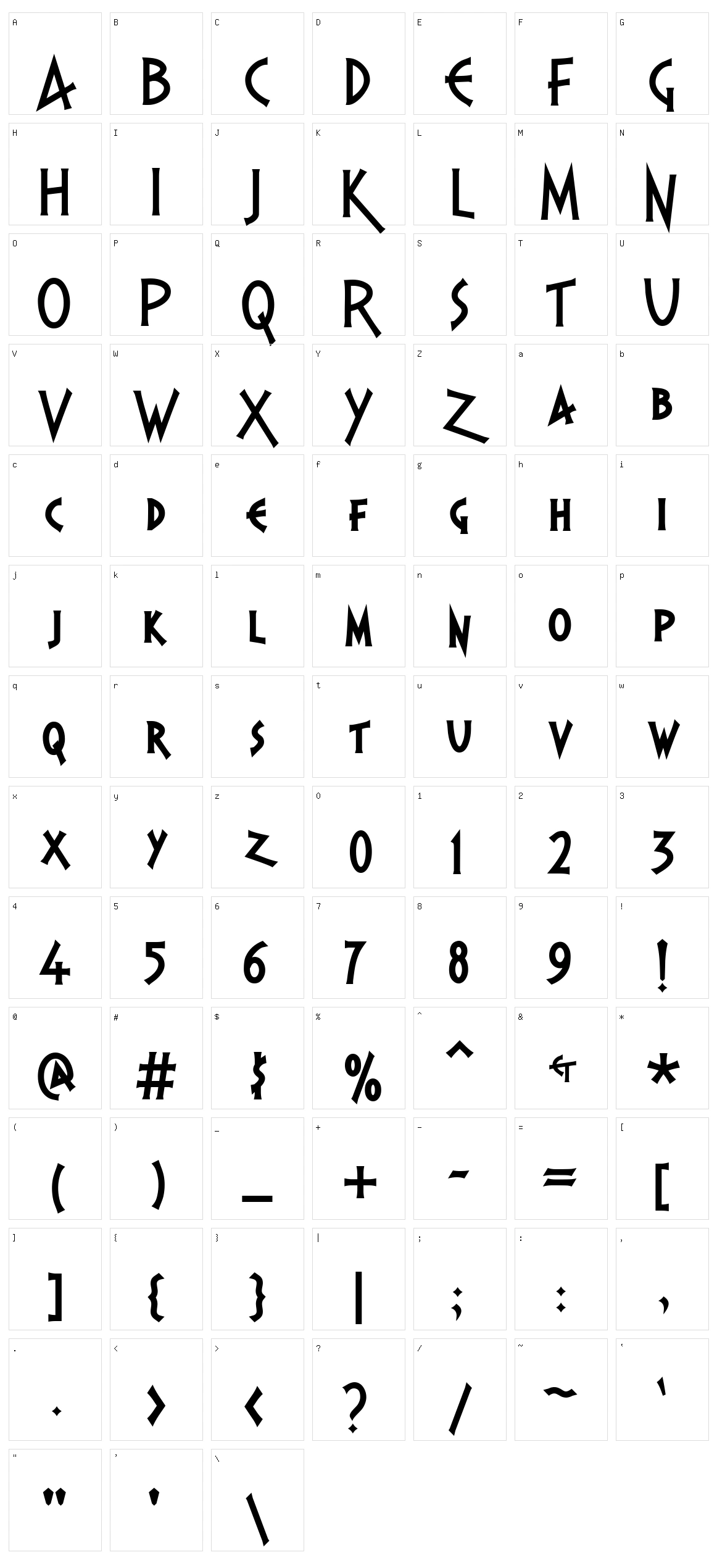
About the artist
Peter Rempel was born in 1958, and is educated in music composition and visual design. In his family home, there were many wall plaques with German Bible verses, rendered in a variety of gothic and fraktur lettering styles. In the 1980s he discovered the art of calligraphy, first through the speedball lettering textbook, and later by joining the calligraphers Guild of manitoba.
He has studied a variety of lettering styles, but his strongest interest is in the letter styles of the Middle Ages, starting with the German Fraktur styles he knew from childhood, and extending back, into uncials, runic shapes, and the Classical Roman Letter. The Chancery cursive, or Italic hand, which to many people is synonymous with calligraphy, never held much interest for him.
Fonts released in 2007 include PR Compass Rose, PR Viking and PR Agamemnon. The Viking font was designed several years ago, but has recently been reclassified as linkware, which makes it free for personal use.